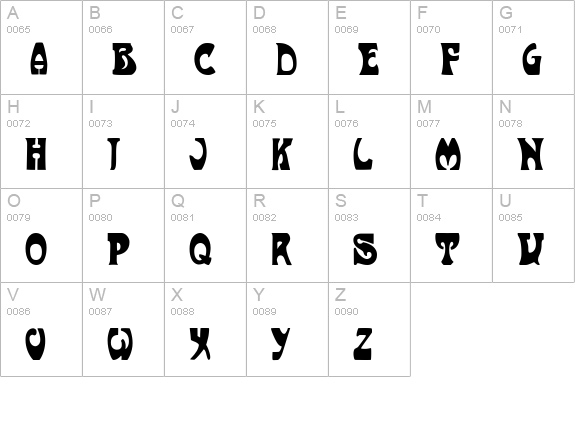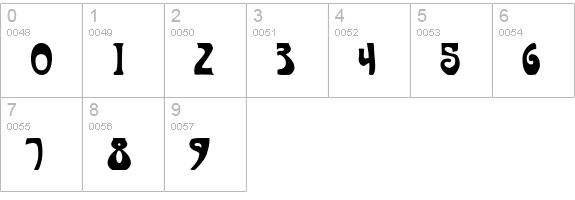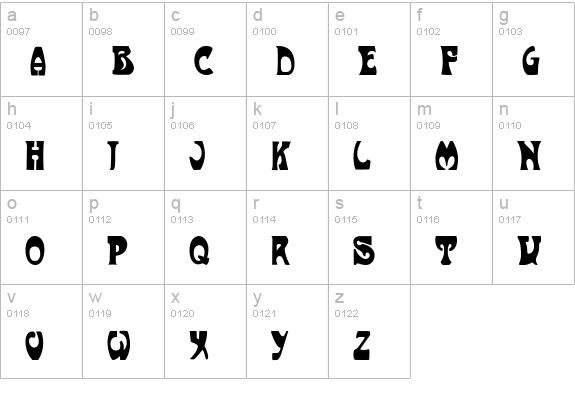
Art-Nouveau 1910 Font Details
Art-Nouveau 1910 font is a stunning display typeface that beautifully captures the essence of the Art Nouveau movement from the early 20th century. With its intricate floral motifs and flowing lines, this font exudes elegance and sophistication. The Art-Nouveau 1910 font is perfect for adding a touch of vintage charm to your design projects, whether you're working on invitations, packaging, posters, or branding. What sets this font apart is its timeless appeal and versatility. It can be used for both headings and body text, making it a great choice for a wide range of design applications. The Art-Nouveau 1910 font is designed with attention to detail, ensuring that every character is crafted with precision and care. One of the best things about the Art-Nouveau 1910 font is that it is completely free to download. You can get your hands on this exquisite typeface at FontsMarket.com, where you'll find a wide selection of high-quality fonts for all your design needs. Don't miss out on the opportunity to add a touch of Art Nouveau elegance to your projects with the Art-Nouveau 1910 font. Download it today and let your creativity soar!